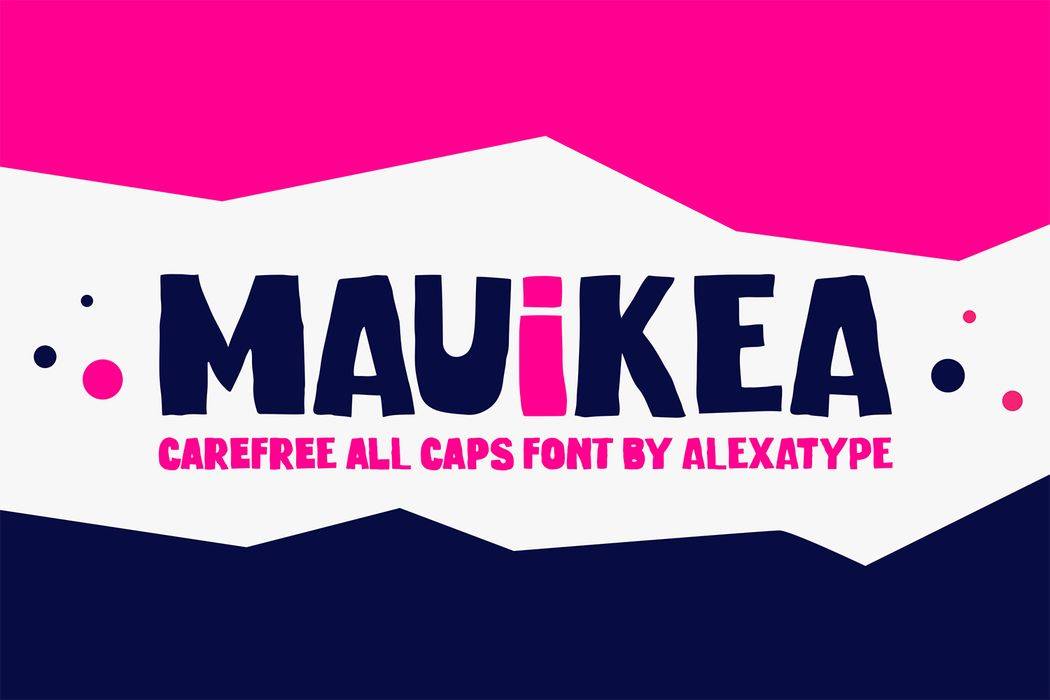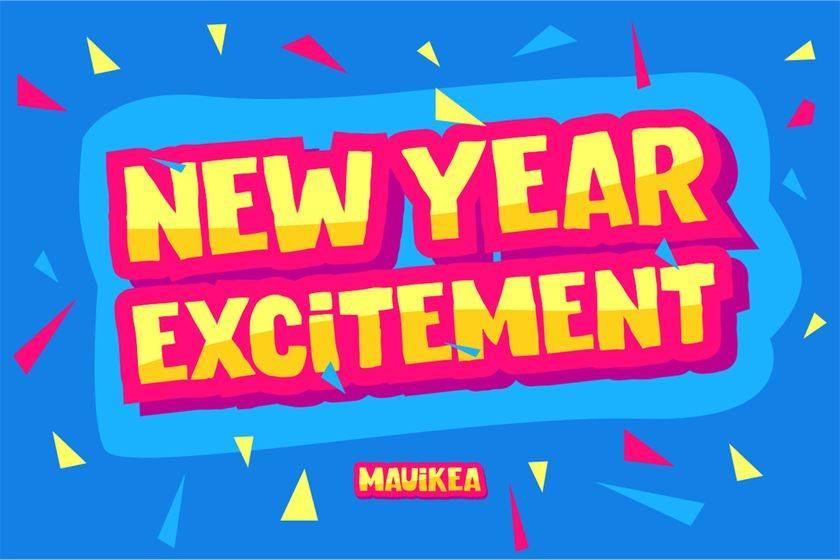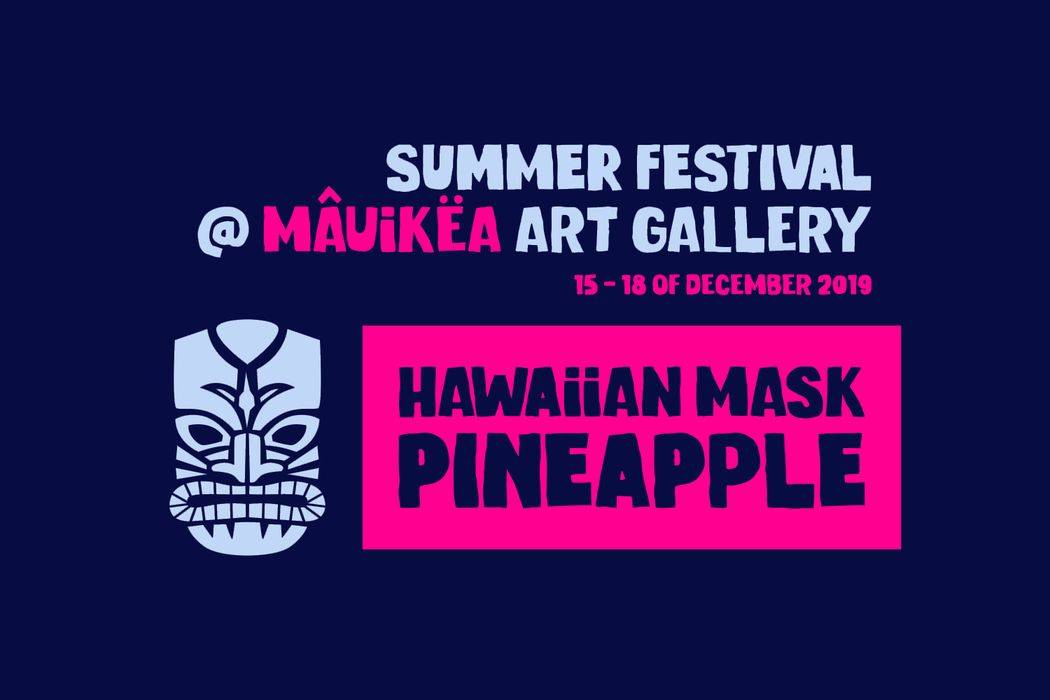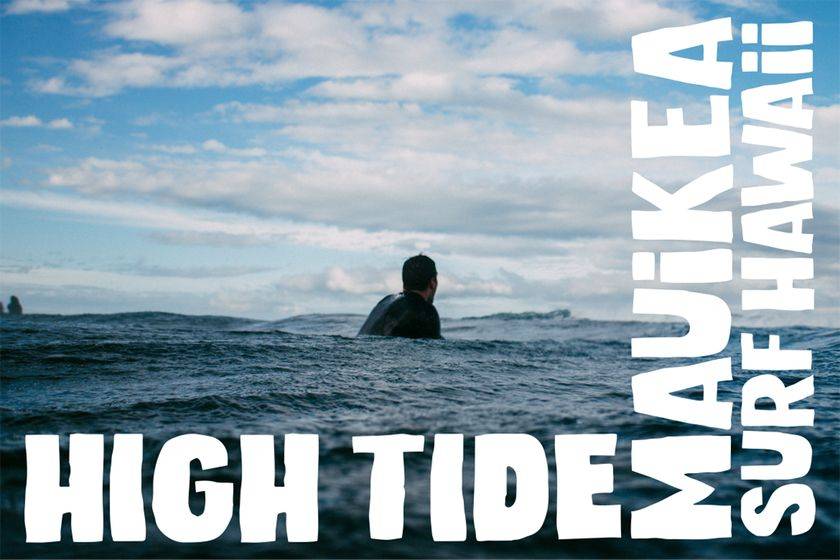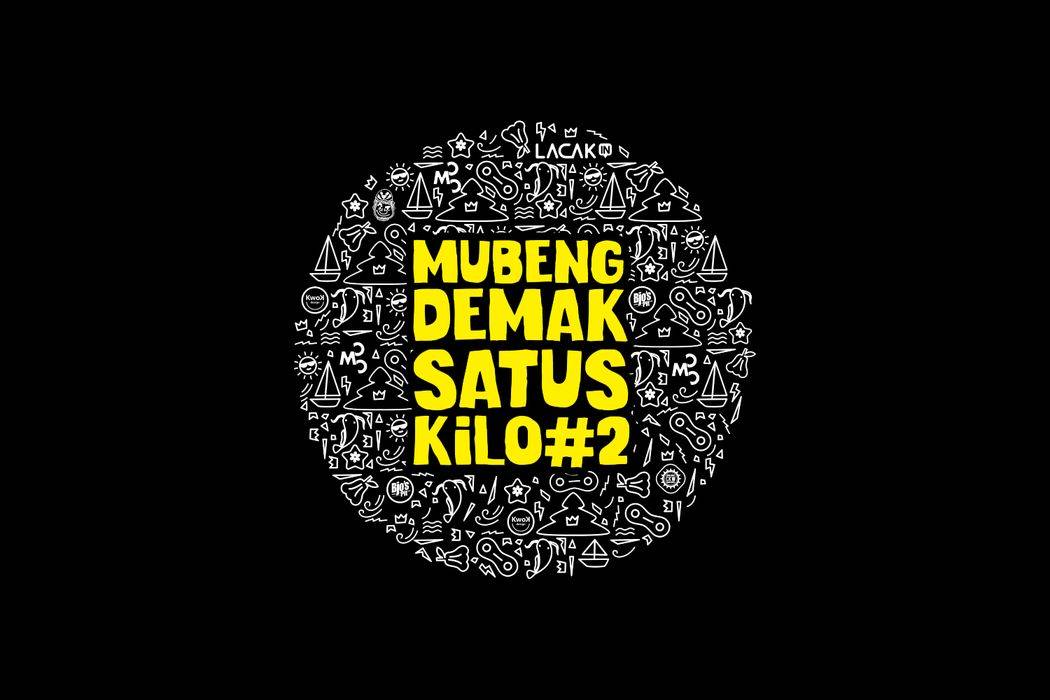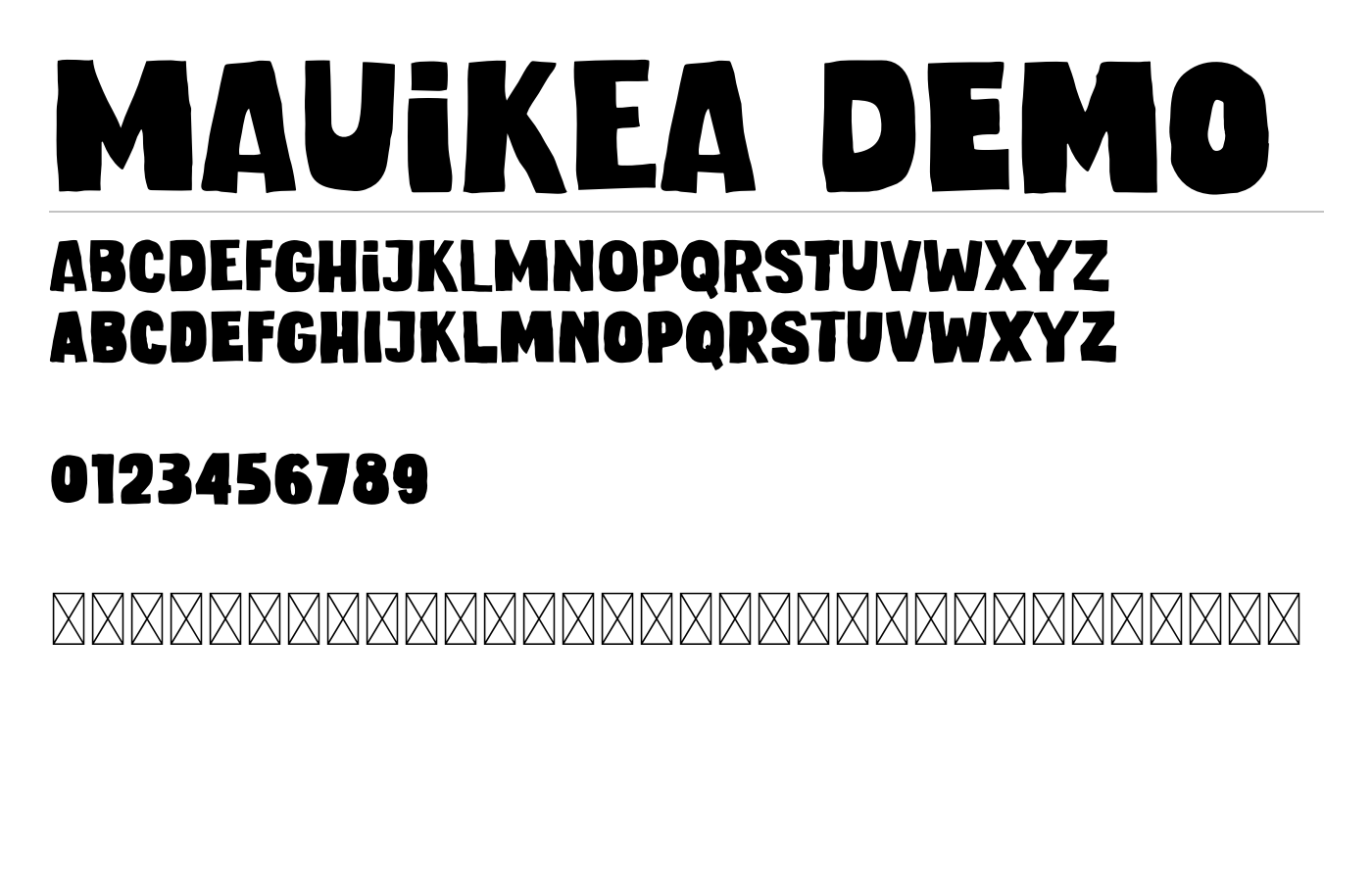
Mauikea is a bold, playful sans serif font featuring chunky, uneven letterforms that give it a casual and hand-crafted feel. Its wide, irregular shapes and solid weight make it perfect for fun, eye-catching headlines, logos, and branding that want to convey a friendly, approachable vibe. This font works especially well in creative projects, packaging, and posters where a lively and informal tone is desired.
Mauikea Font
About Mauikea Font